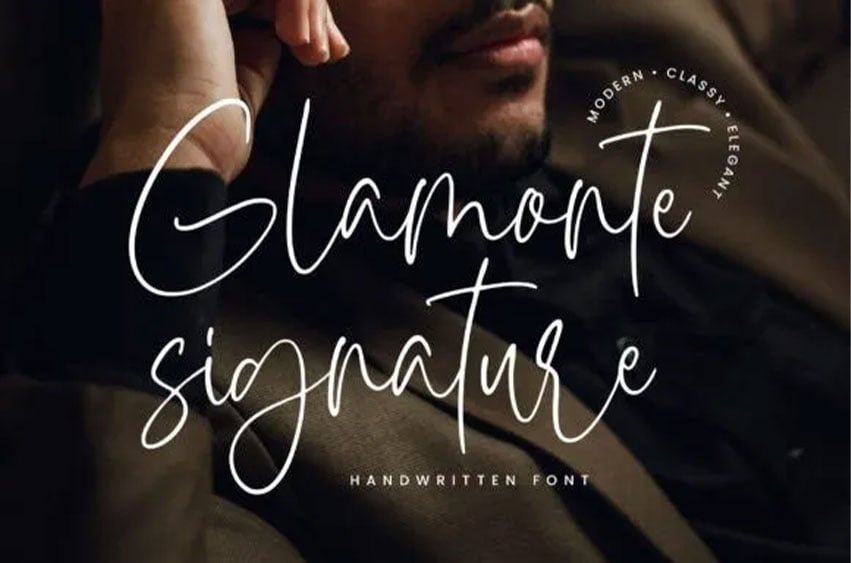
Glamonte Font Signature Font. A combination of signature and handwriting style that visualizes unique and classy looks. This font has natural and feminine vibes, so it is suitable for use in media that requires an elegant concept & minimalist.
You can use Glamonte Signature for weddings, invitations, cards, short quotes, and many more! This font consists of stylistic alternates, ligatures, and multilingual support.